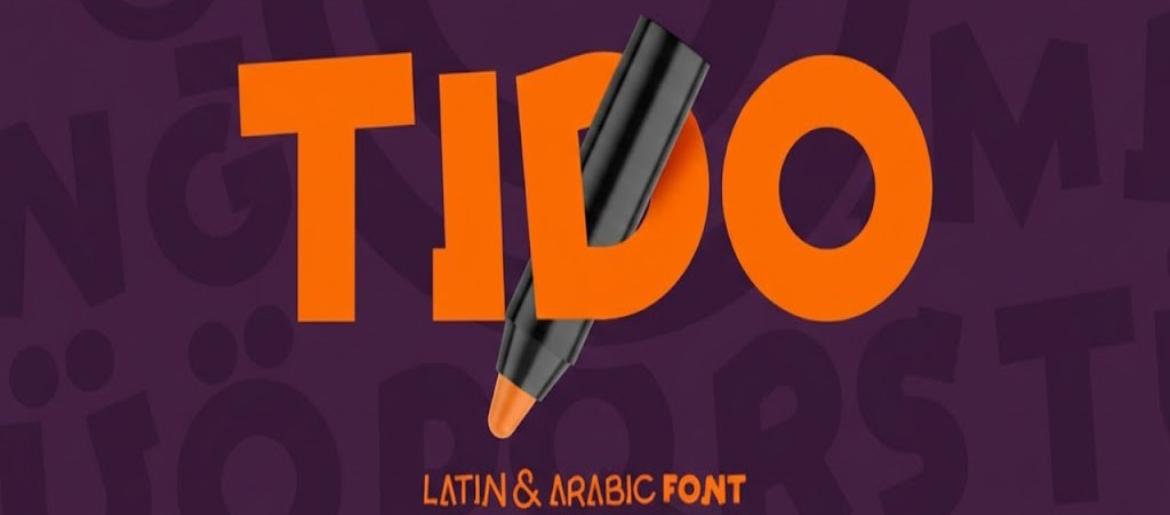
TIDO Font
TIDO Font is a modern display typeface featuring bold shapes and clean contemporary styling. It delivers strong visual presence suitable for logos, branding, posters, headlines, and digital graphics. Its balanced structure and distinctive personality help designs stand out, making it a versatile and eye-catching choice within creative and professional free fonts collections for modern typography.
➤ Font Name: TIDO
➤ Designer: Anyone ae®
➤ Style: Display